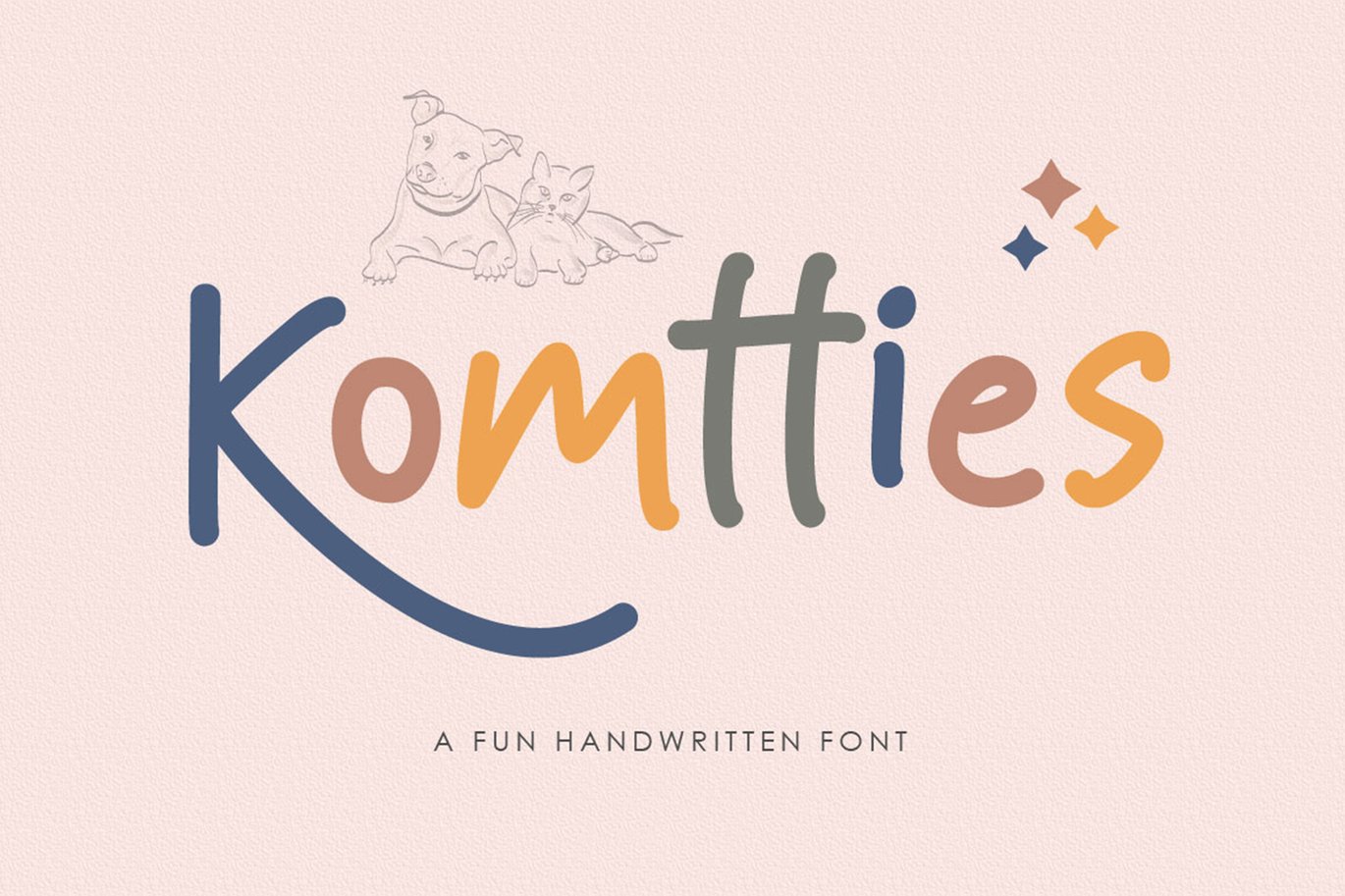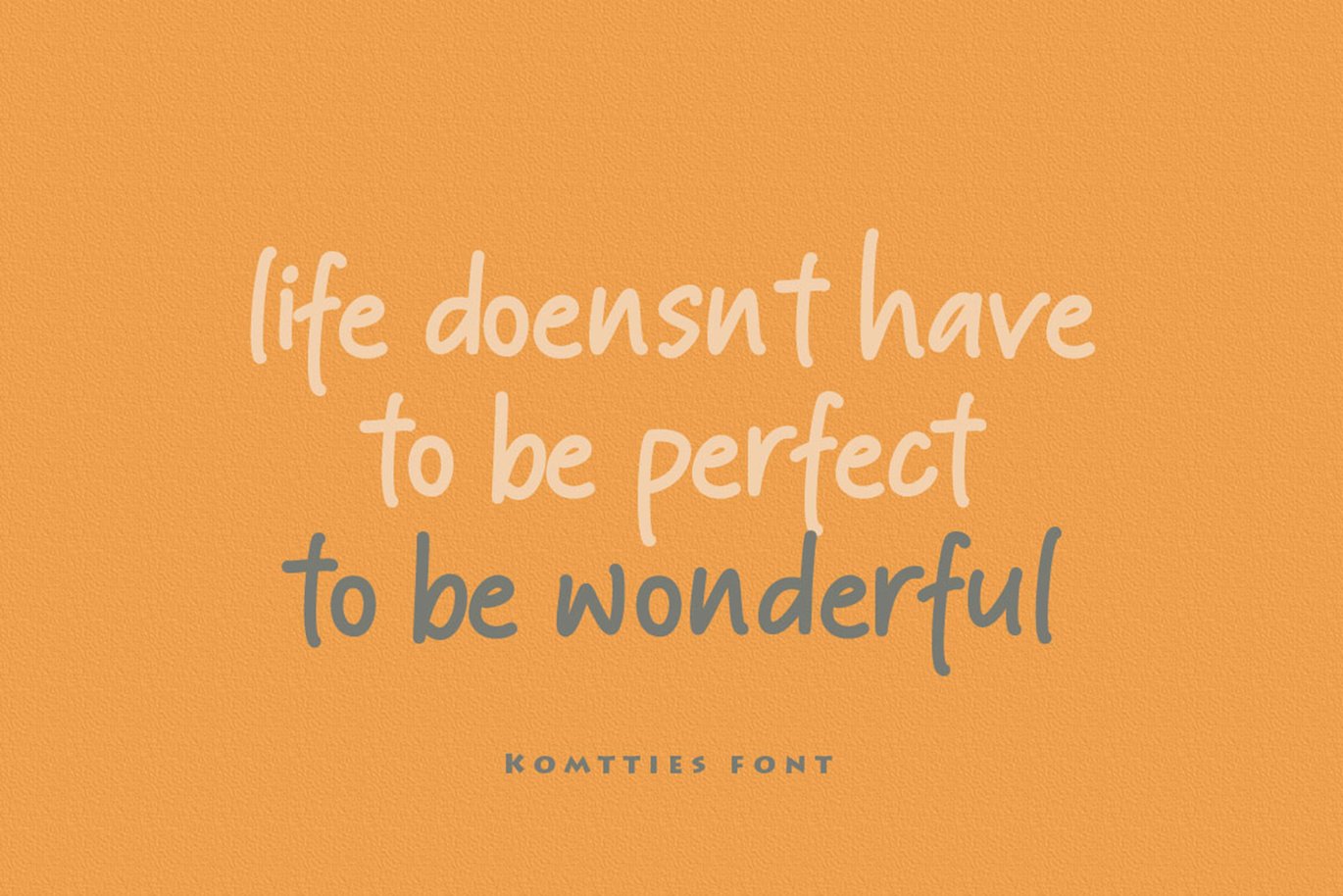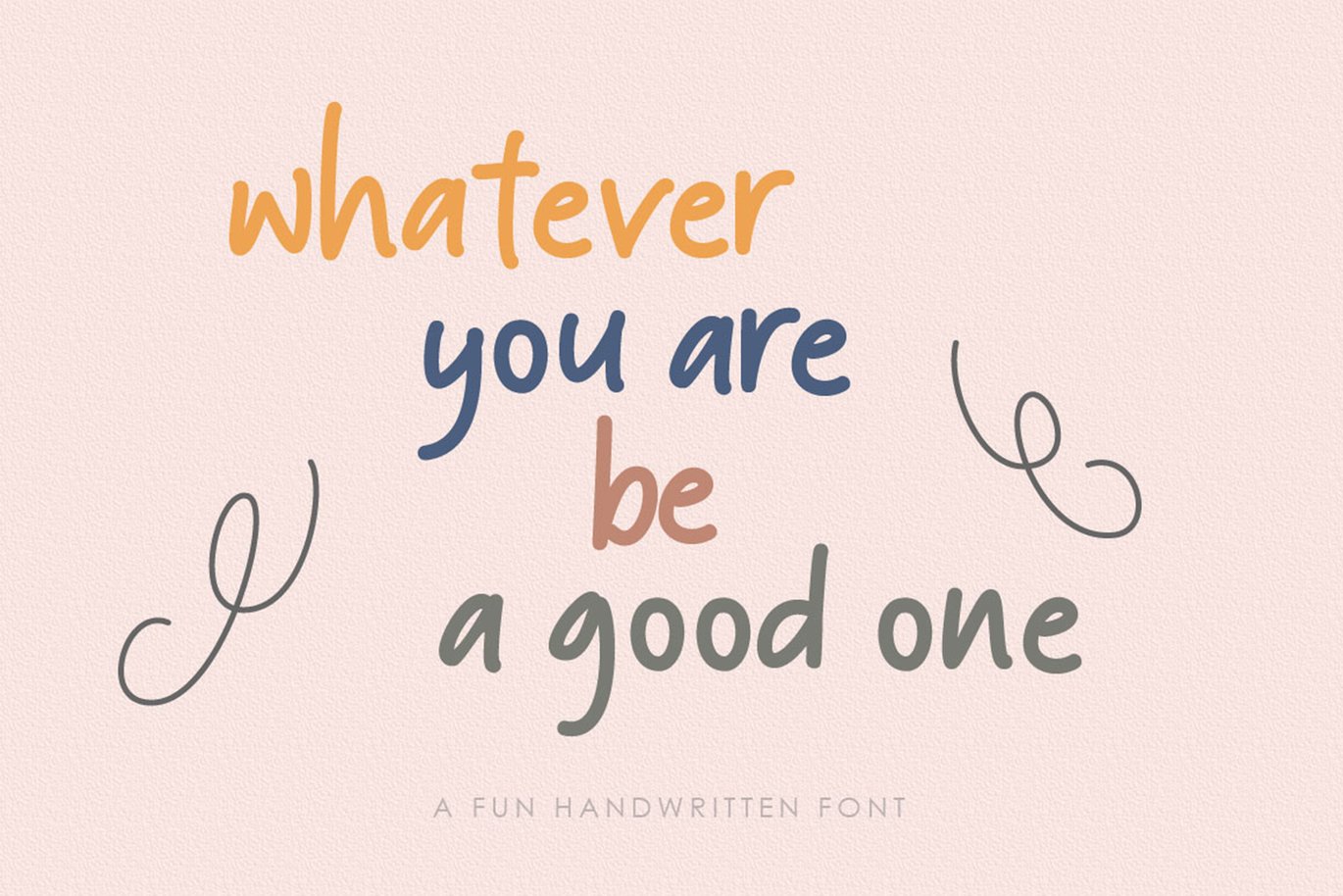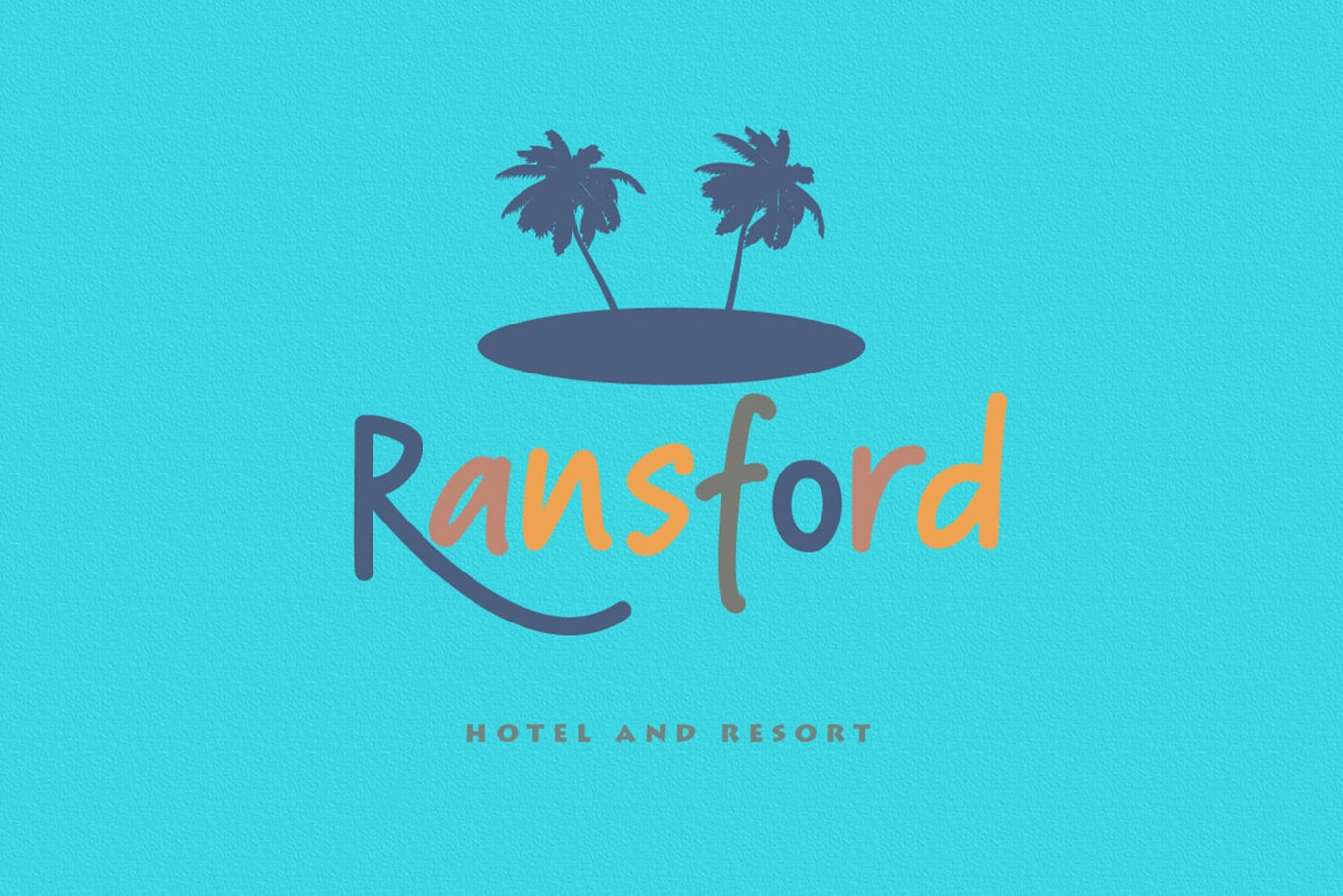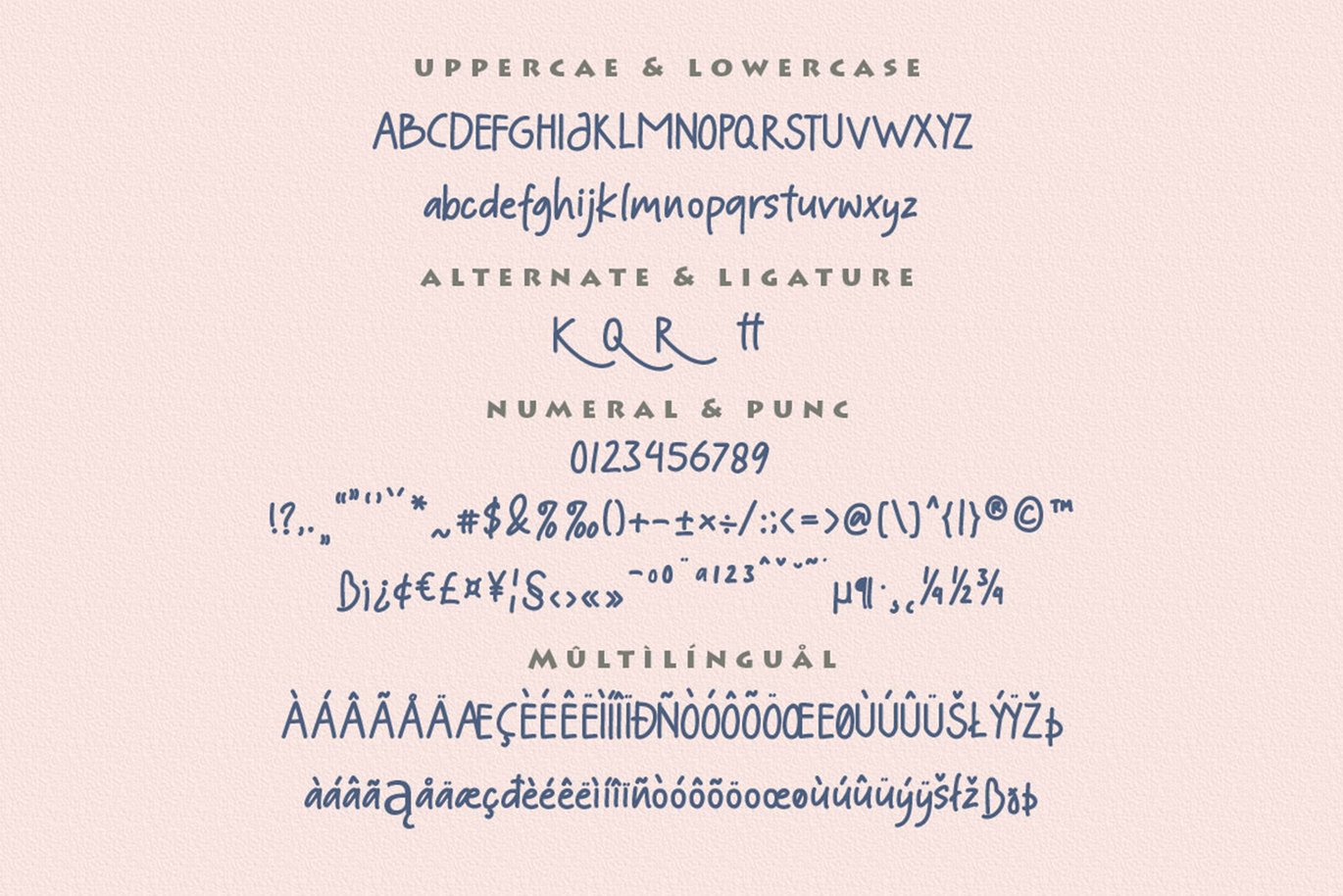
Komtties – Kids Handwriting Font
Komtties is a handwritten font that can be used for all chalkboard quotes or teaching material! Its authentic handwritten look and feel will add a personal and realistic feel to your designs.
*Uppercase, Lowercase, Numerals & Punctuations
*Ligature & Alternate
*Multilingual support